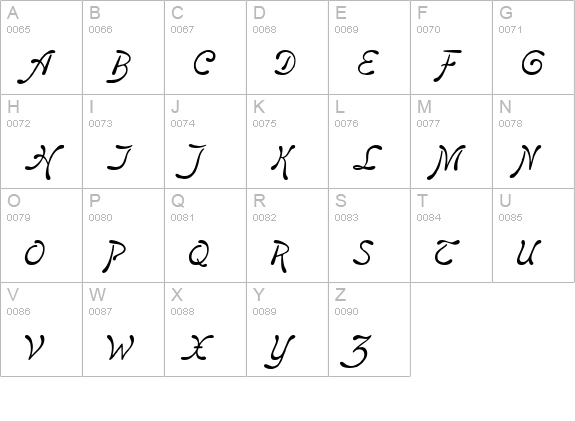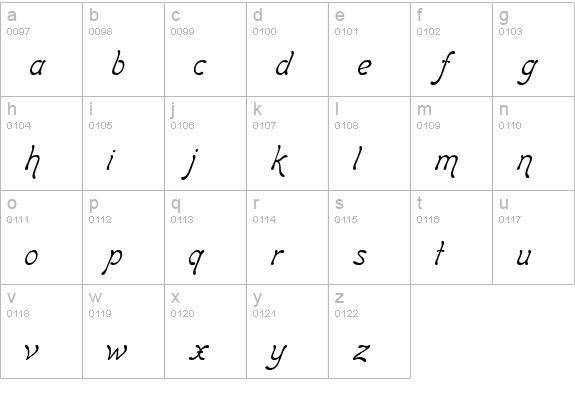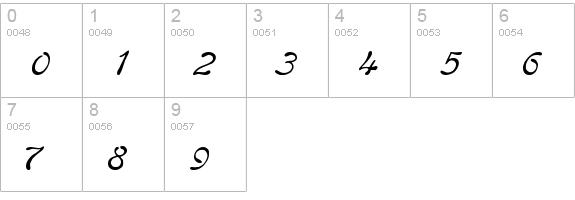
BoomerangItalic Font Details
BoomerangItalic font is a stylish and modern typeface that exudes elegance and sophistication. Its sleek curves and italicized design make it perfect for adding a touch of flair to any project. This versatile font is ideal for use in various design applications such as branding, advertising, and editorial projects. The best part about BoomerangItalic font is that it is completely free! You can easily download it at FontsMarket.com and start using it in your designs right away. Whether you're working on a personal project or a professional assignment, this font will surely elevate your work and make it stand out. With its unique and eye-catching appearance, BoomerangItalic font is sure to make a lasting impression. Give your designs a touch of elegance and flair by incorporating this beautiful font into your creative projects today.